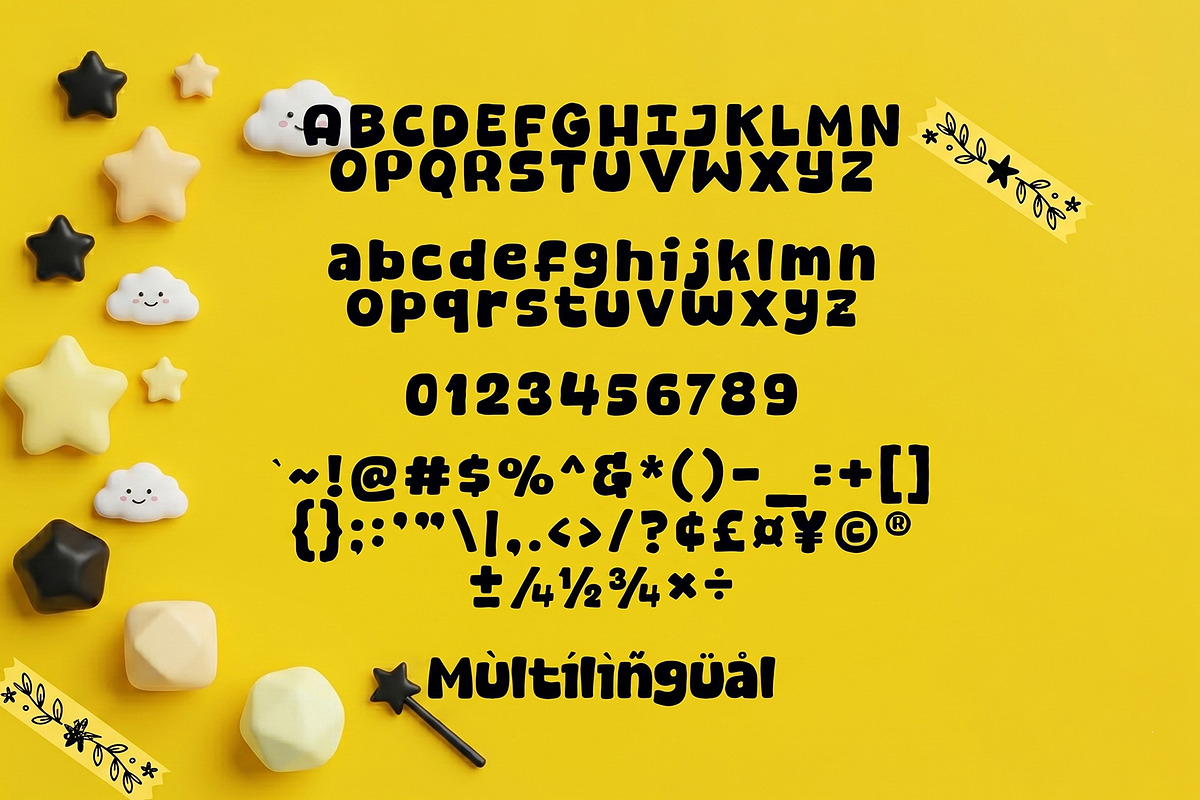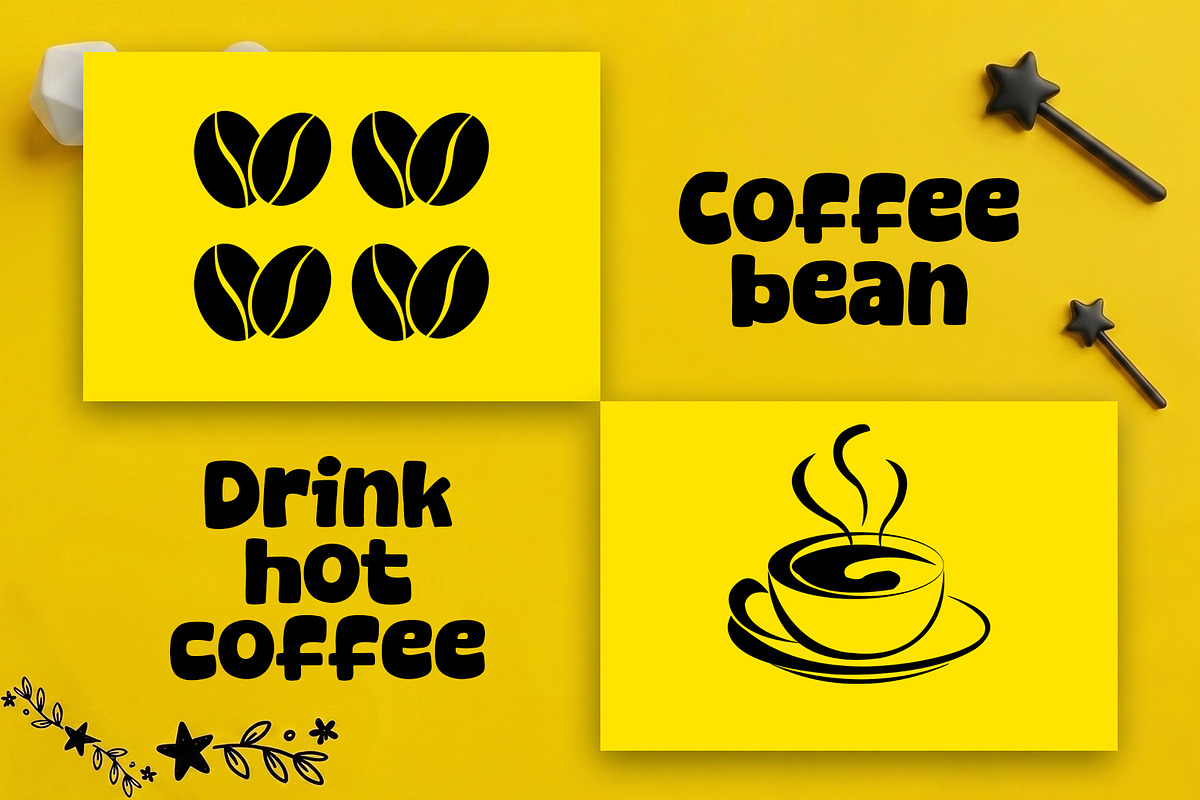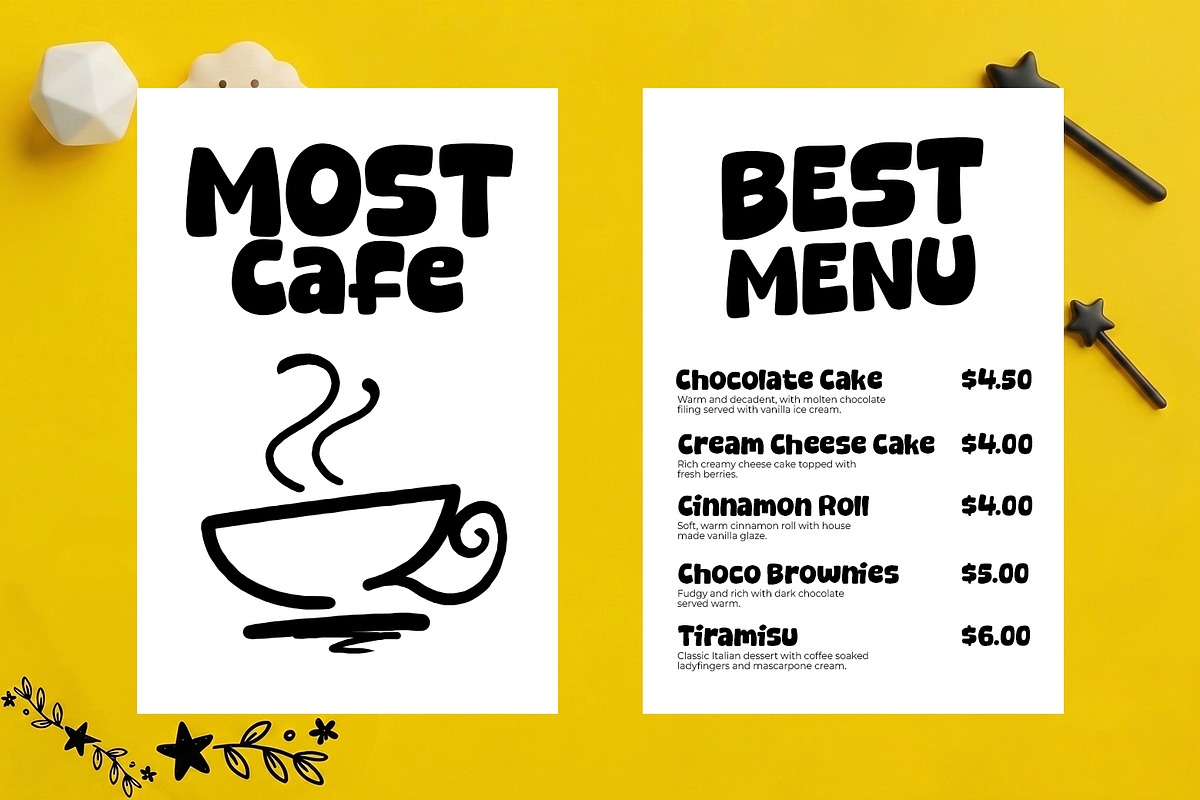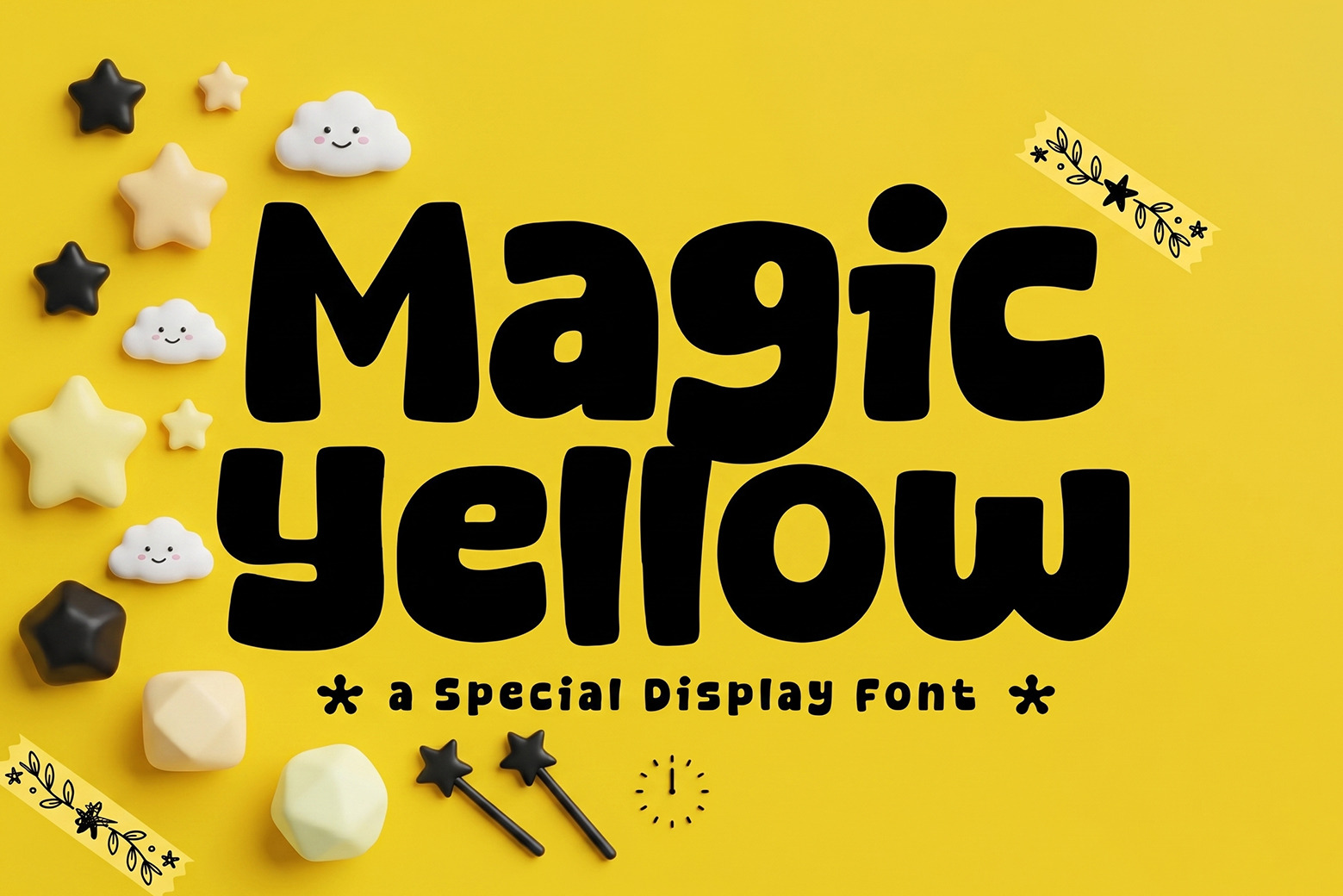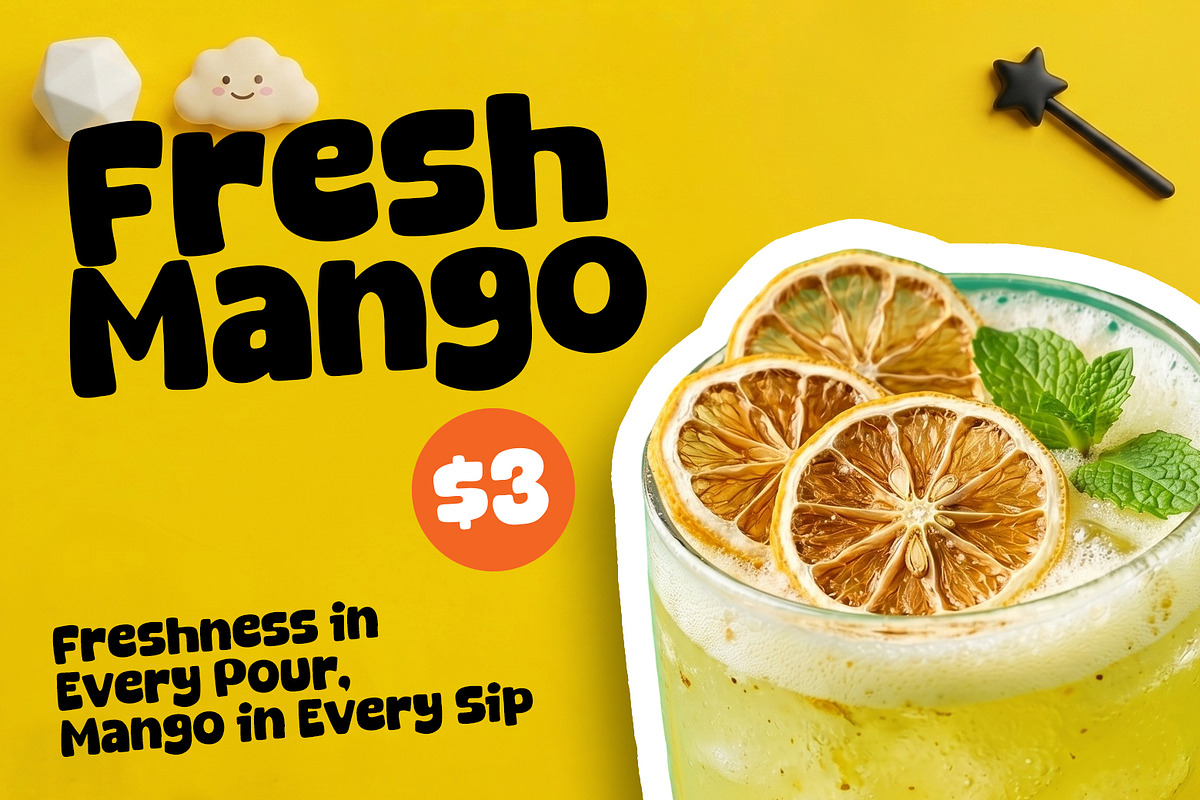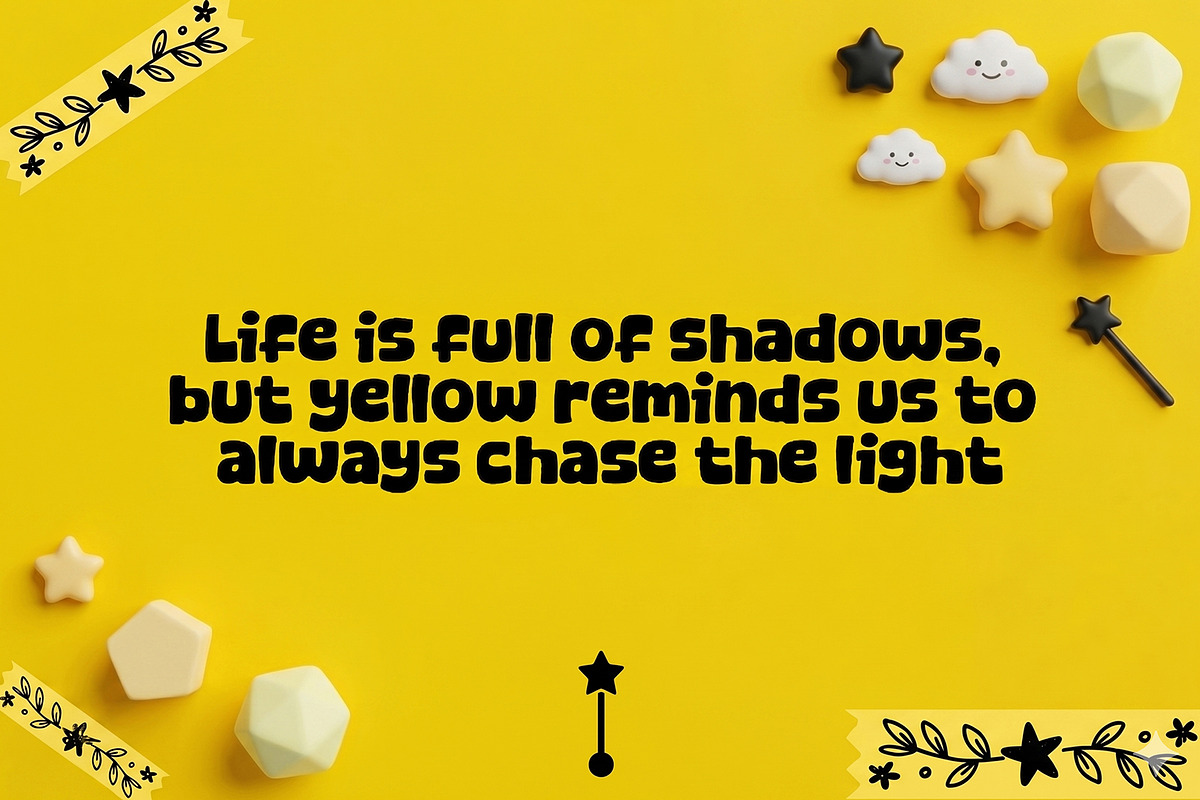
Magic Yellow - Cozy & Display Font
Introducing, Magic Yellow font a fun display typeface with cheerful theme for your fun project. Magic Yellow font suitable for logo, branding, greeting card, poster and any design that you create.
Standart Glyphs
Numberial and Functional